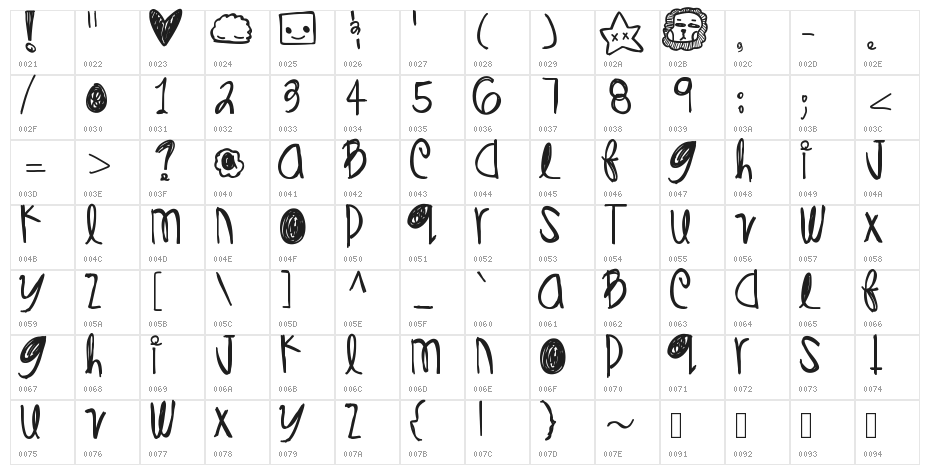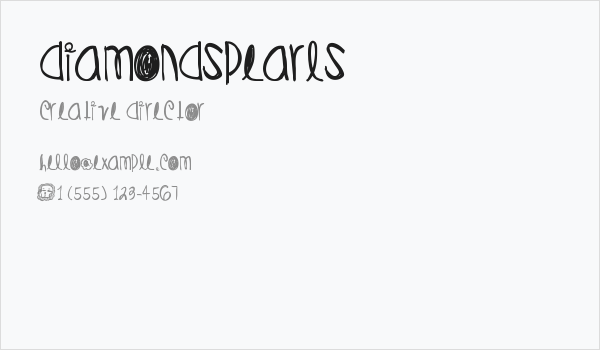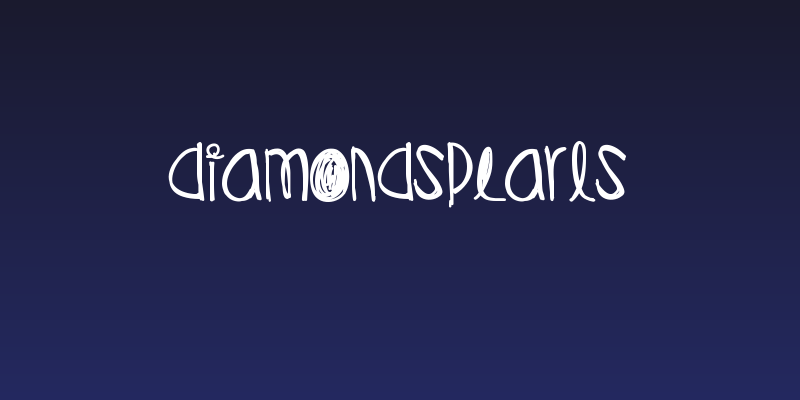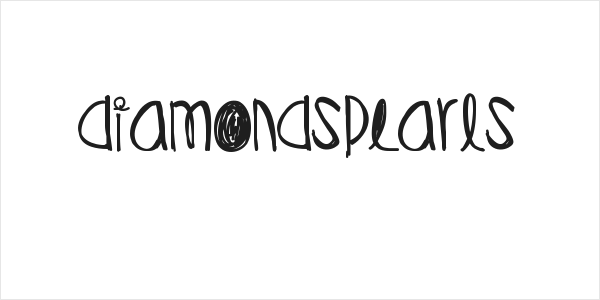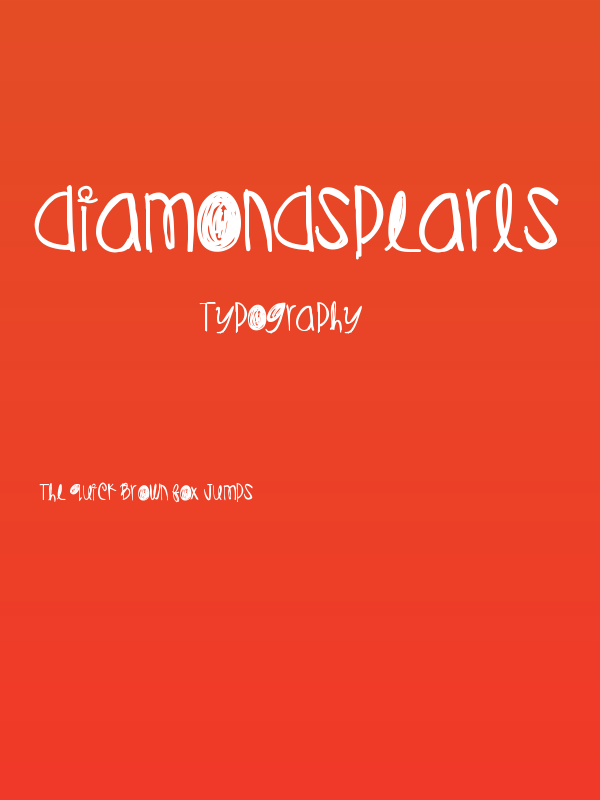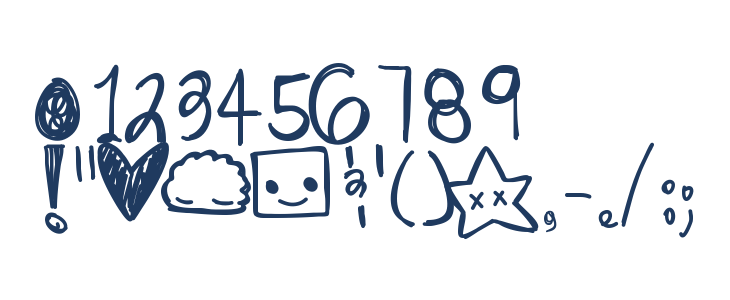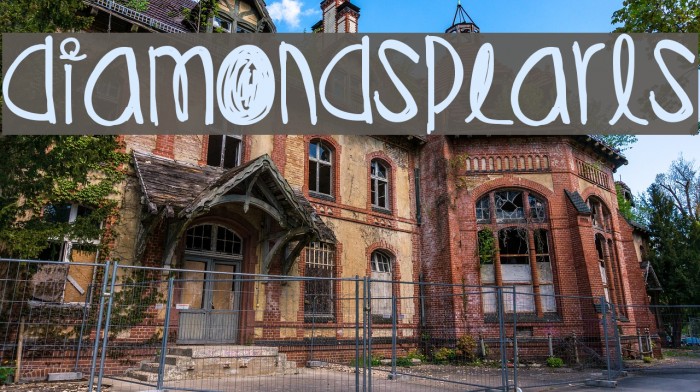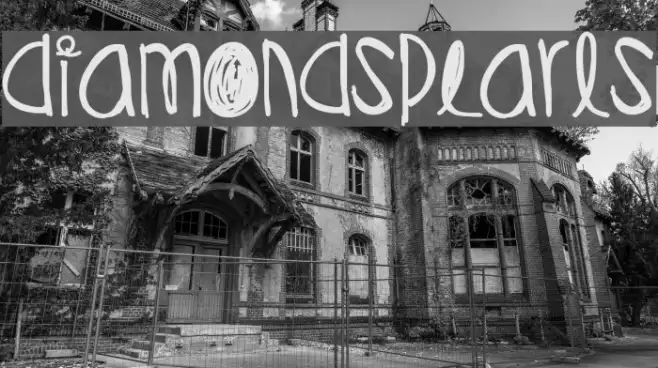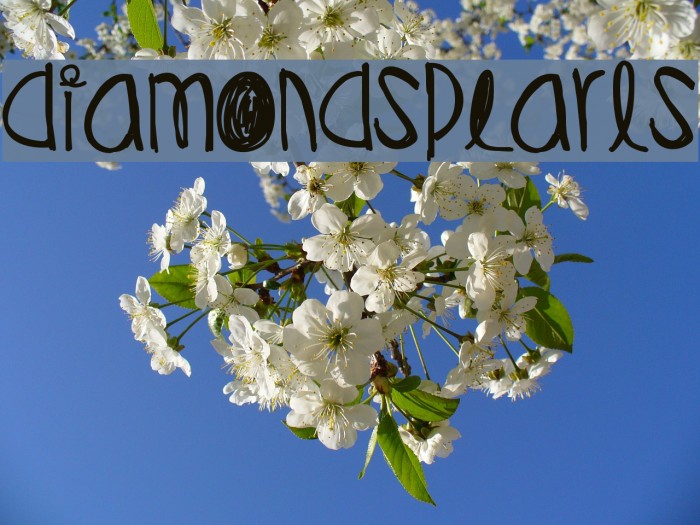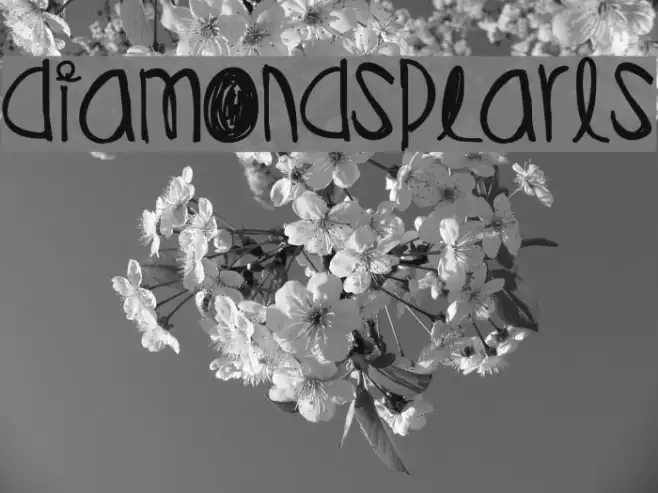
DiamondsPearls Font
DiamondsPearls Description
This font exhibits a playful and whimsical handwritten style, characterized by its irregular strokes and casual appearance. The letters are crafted with a sense of spontaneity, featuring varying line thicknesses that add a dynamic and lively feel. The uppercase and lowercase letters maintain a consistent style, with rounded edges and a slightly tilted orientation, giving the font a friendly and approachable look. The numbers and special characters follow the same playful design, enhancing the overall cohesive aesthetic. This font is ideal for projects that require a touch of personality and creativity.
| Proposed Projects | Perfect for children's books, greeting cards, playful branding, and creative social media graphics. |